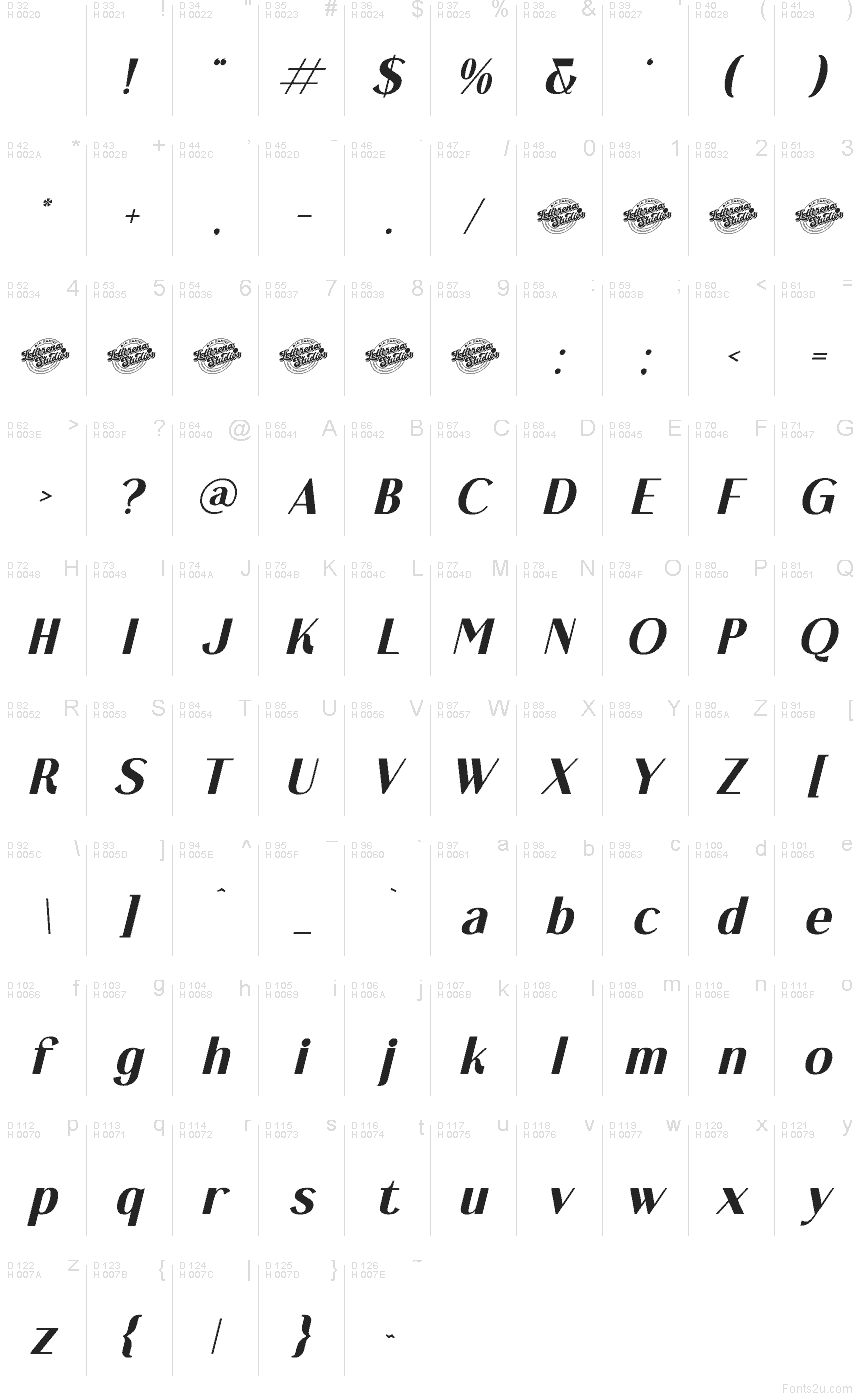
Hannah Claira DEMO VERSION Italic
Hannah Claira Italic font by Letterena Studios is a free elegant serif typeface that captures the sweep and confidence of a handwritten signature. Its strong forward slant, inky thick‑and‑thin strokes, and gently tapering curves give every word a sense of motion and sophistication, like a name scrawled across fine stationery. Letters link visually without actually connecting, so you get a script-like flow while keeping clean, readable forms.
Using Hannah Claira Italic, your designs instantly feel more personal and high-end, making this free font a natural fit for wedding invitations, beauty and fashion branding, boutique logos, packaging, social media graphics, and editorial headlines. It shines when set larger, letting those slanted strokes and dramatic shapes breathe. For balance, pair Hannah Claira Italic with a simple geometric sans serif in smaller text to keep layouts polished and easy to read.